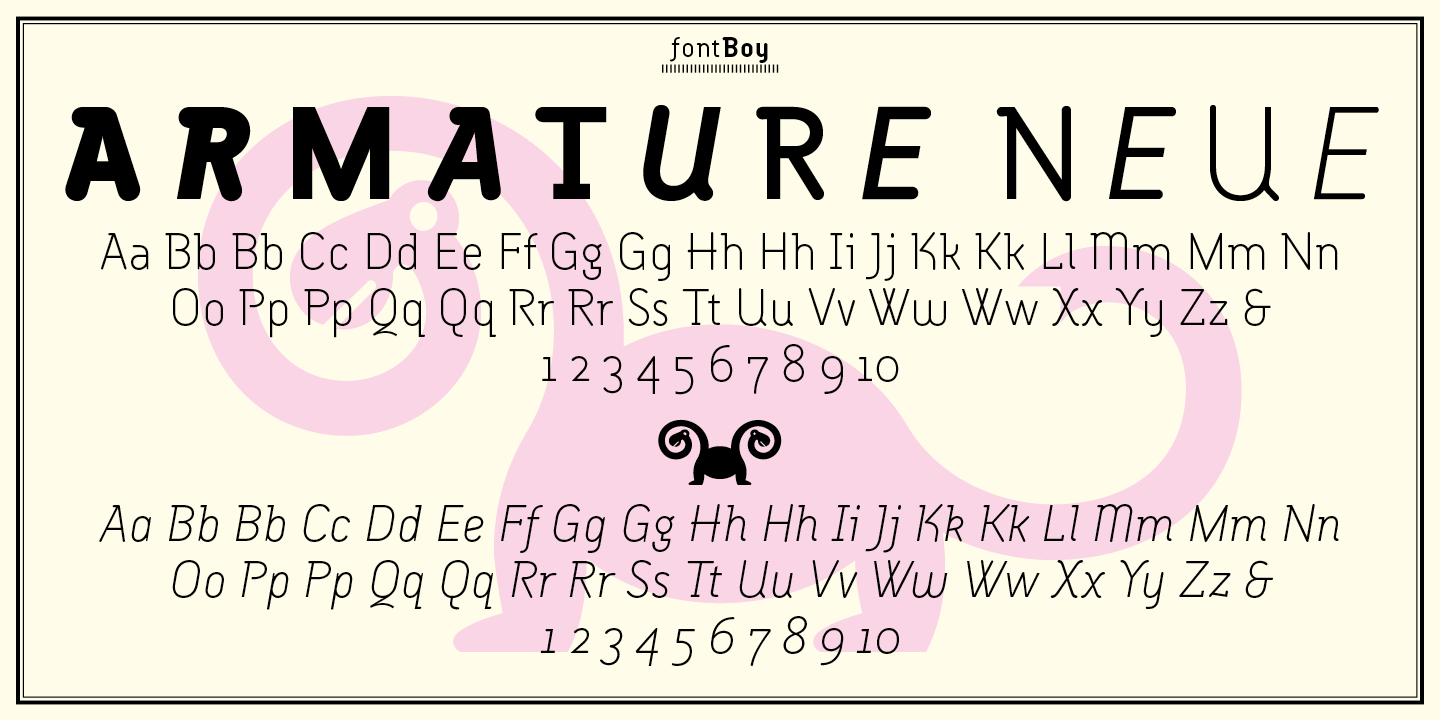
Armature Neue Font Free Download is a modern sans-serif typeface designed with clean lines and geometric precision. Ideal for branding, logos, editorial design, packaging, and digital content, this font offers a sleek, professional look with a contemporary feel. Armature Neue Font combines minimalism with clarity, making it versatile for both headlines and body text, while ensuring legibility and style.
With Armature Neue Font Free Download, you’ll receive a complete set of uppercase letters, lowercase, numbers, and essential punctuation, offering flexibility for various print and digital design needs. Whether you’re creating a polished logo, developing marketing materials, or designing a website, this font guarantees readability while adding a modern, professional touch to your projects.
Bring sleek sophistication and modern clarity to your designs with Armature Neue Font Free Download. Its clean, geometric style makes it the perfect choice for projects that require professionalism and contemporary aesthetics.